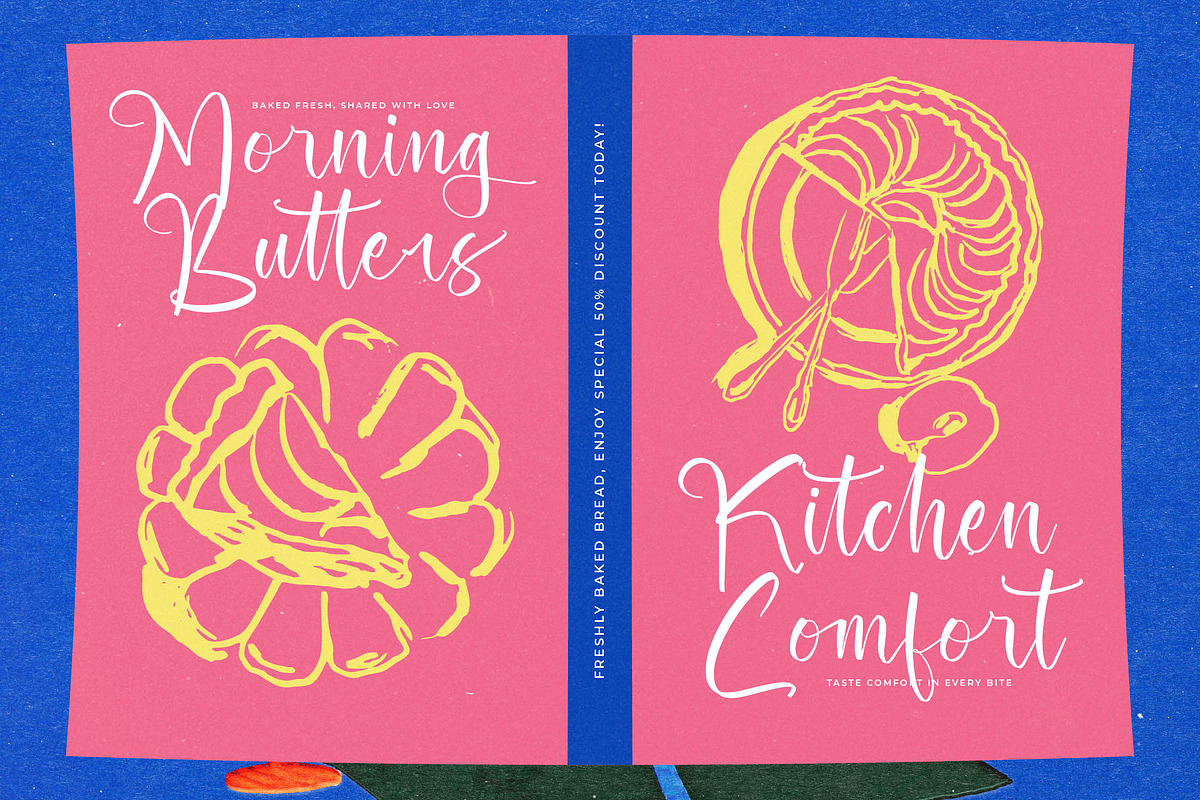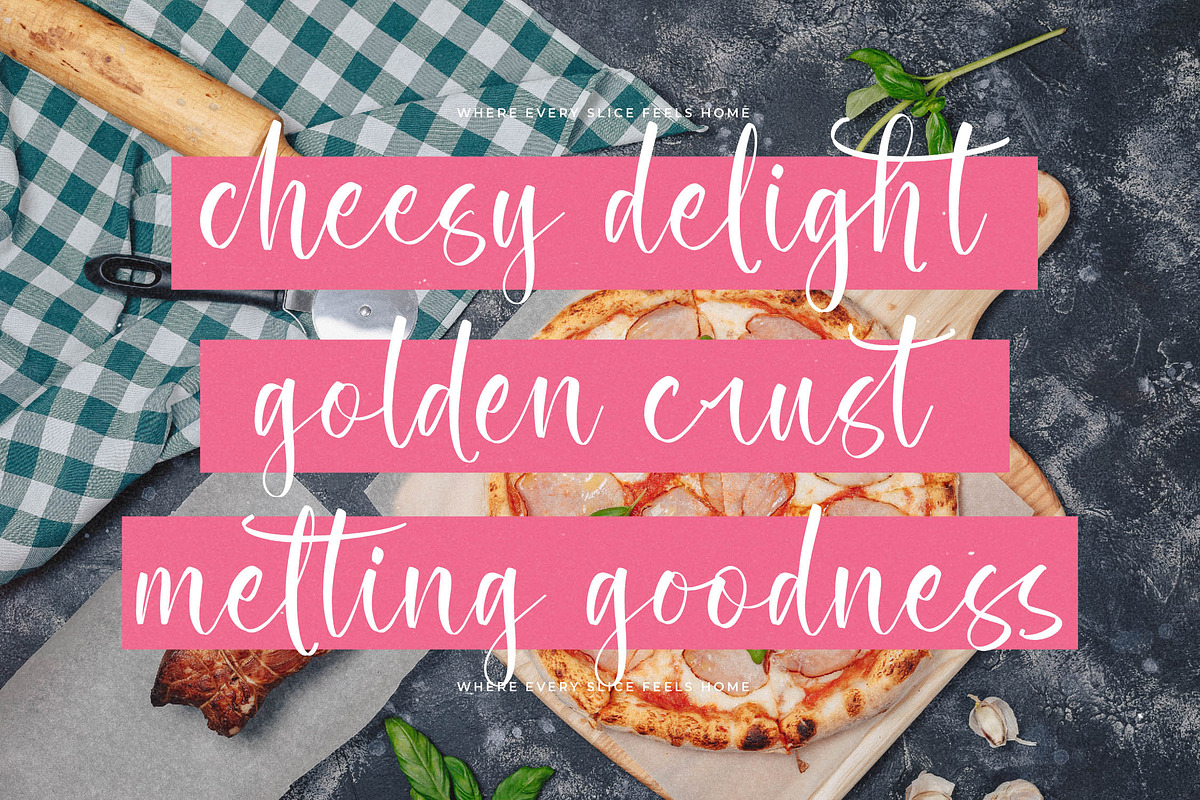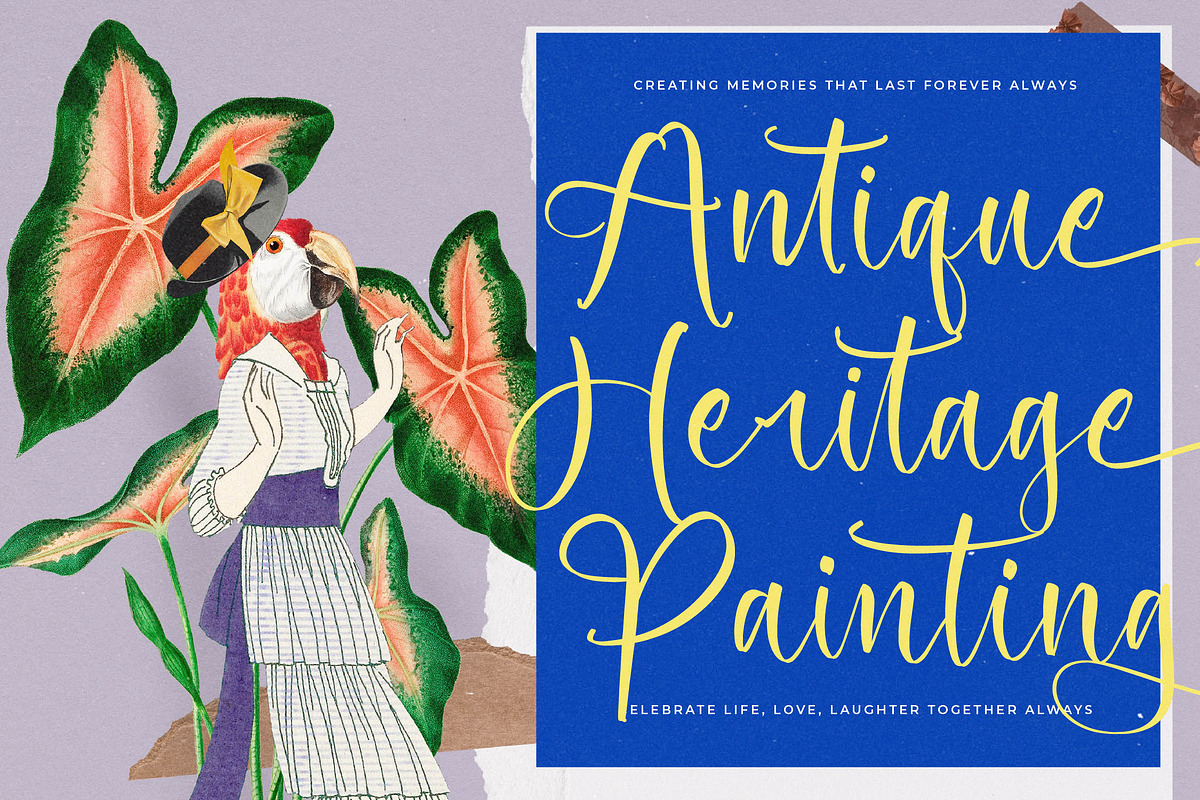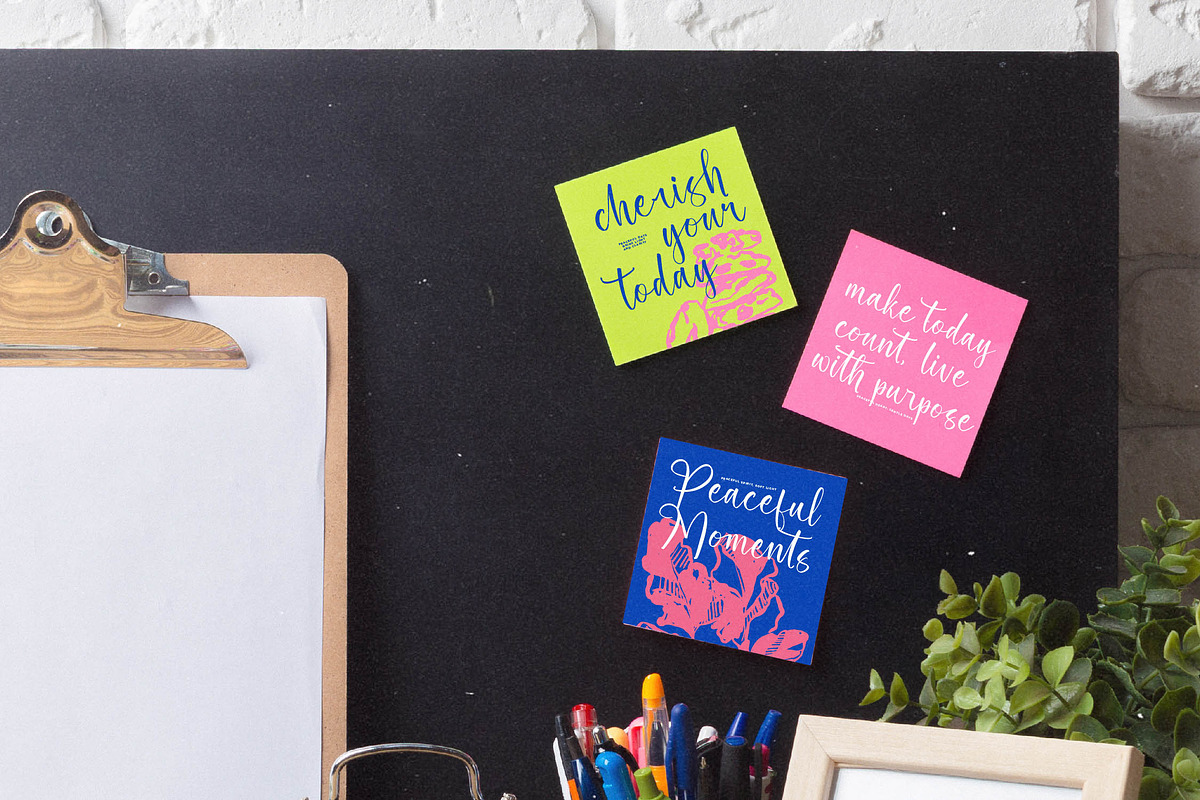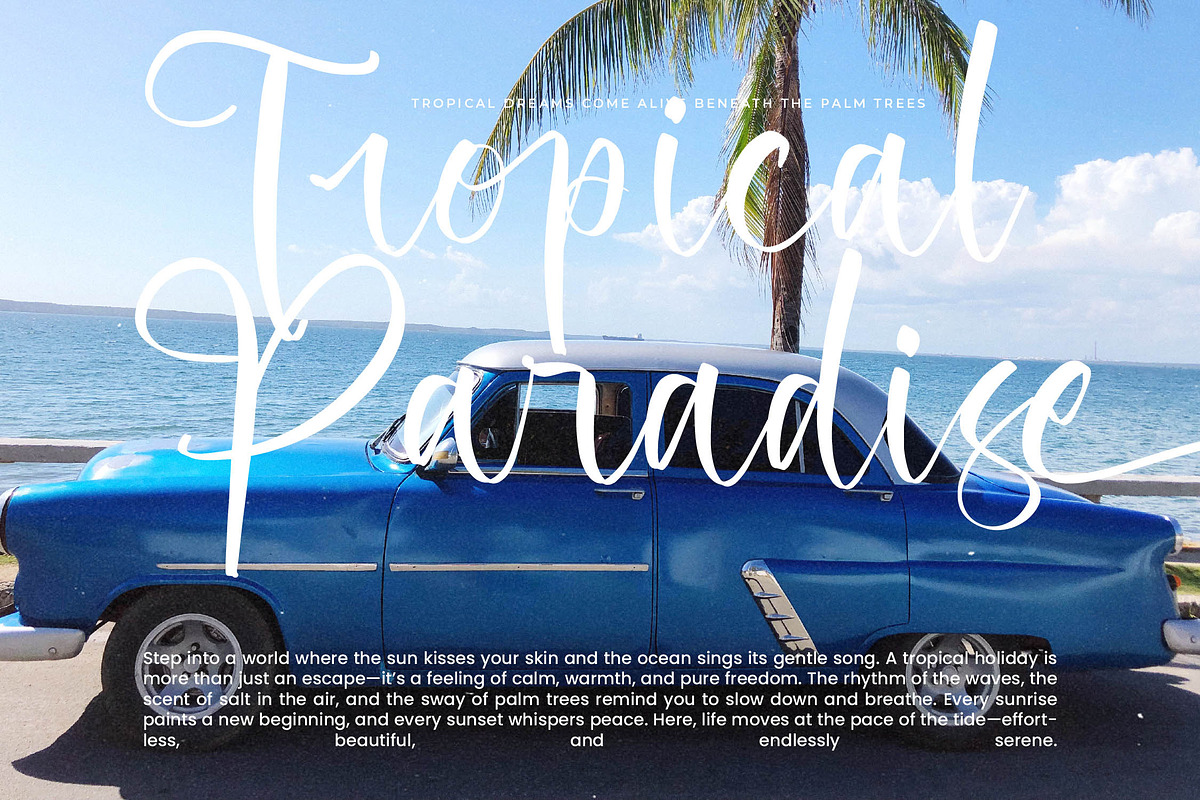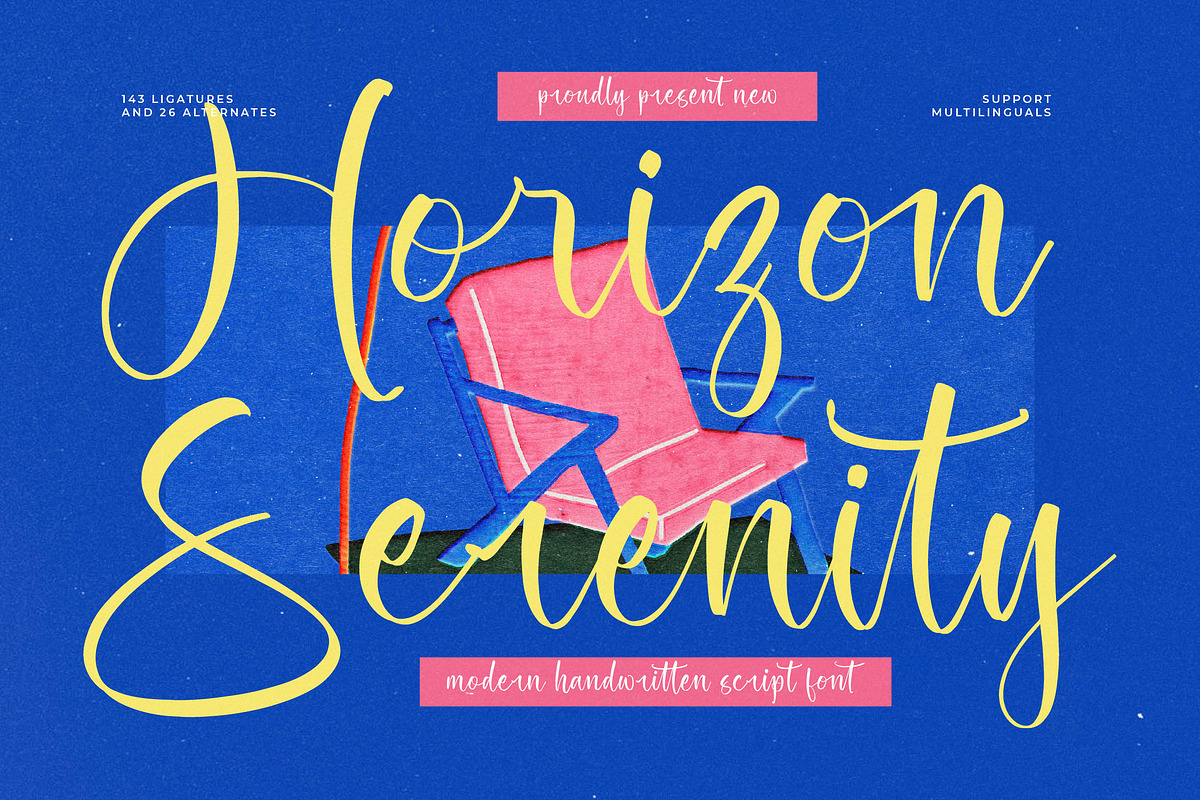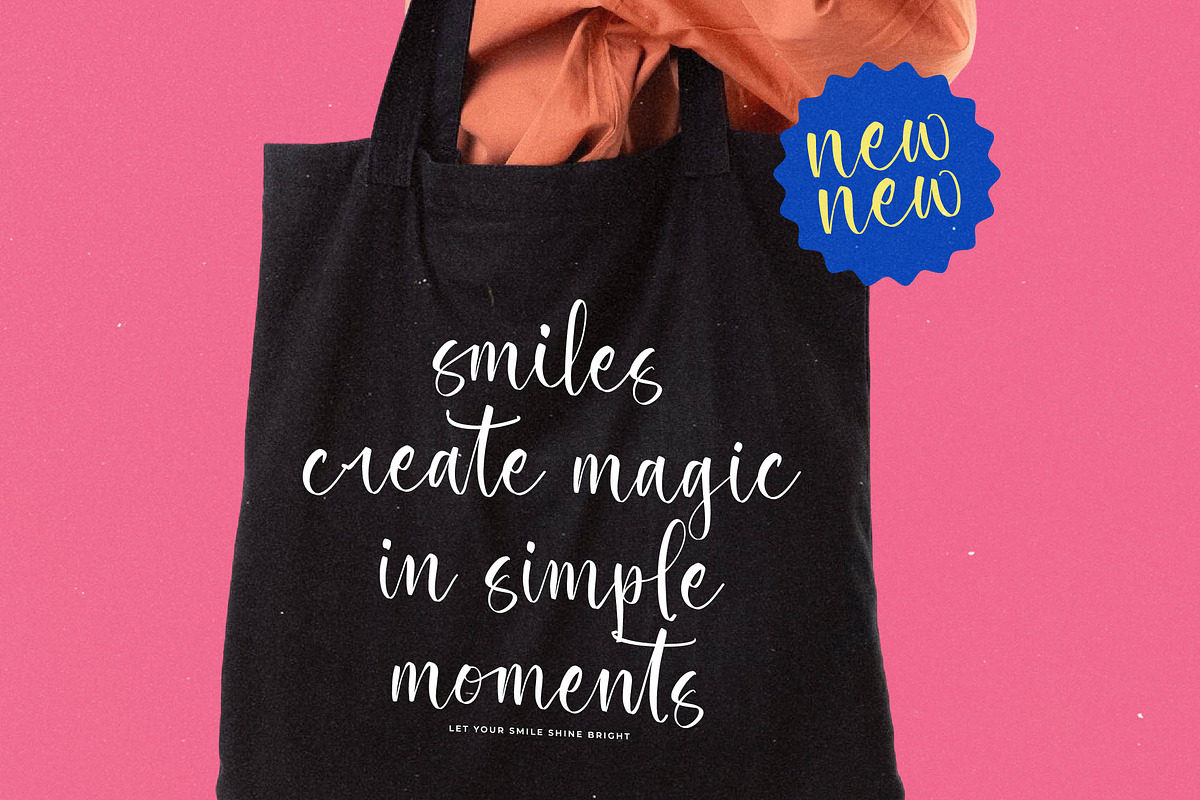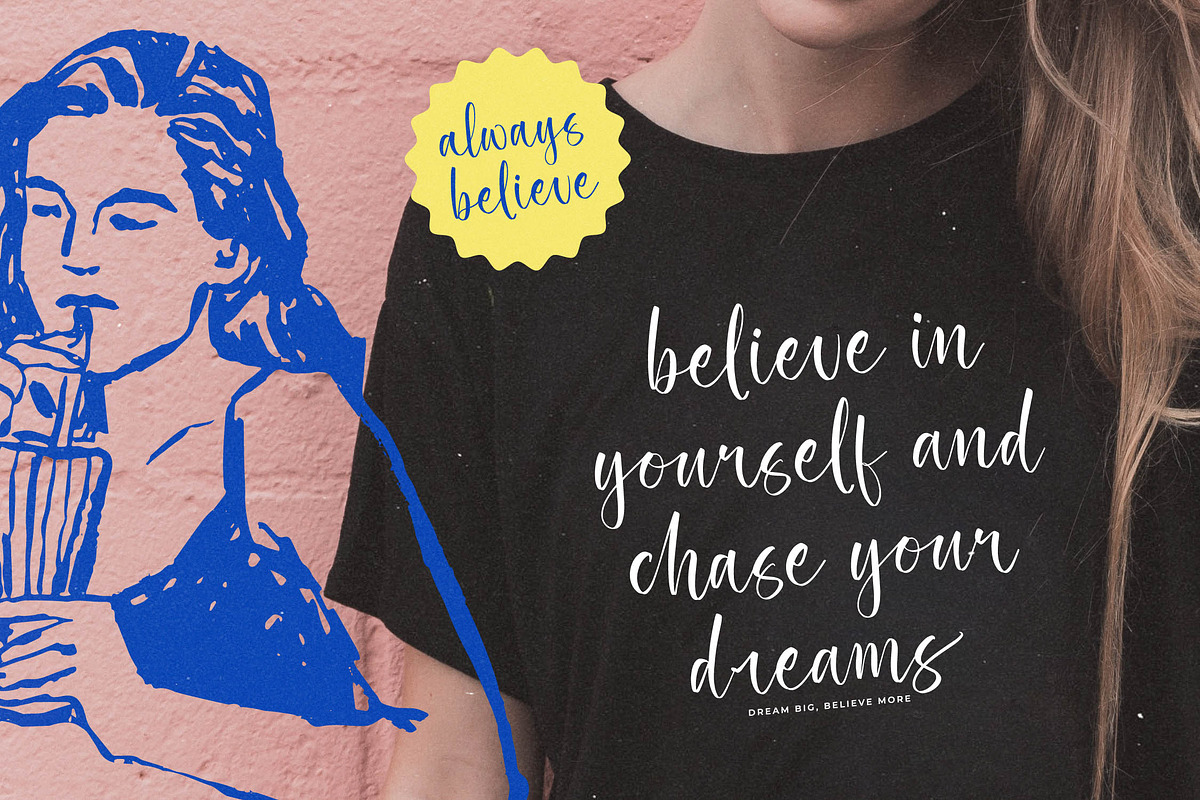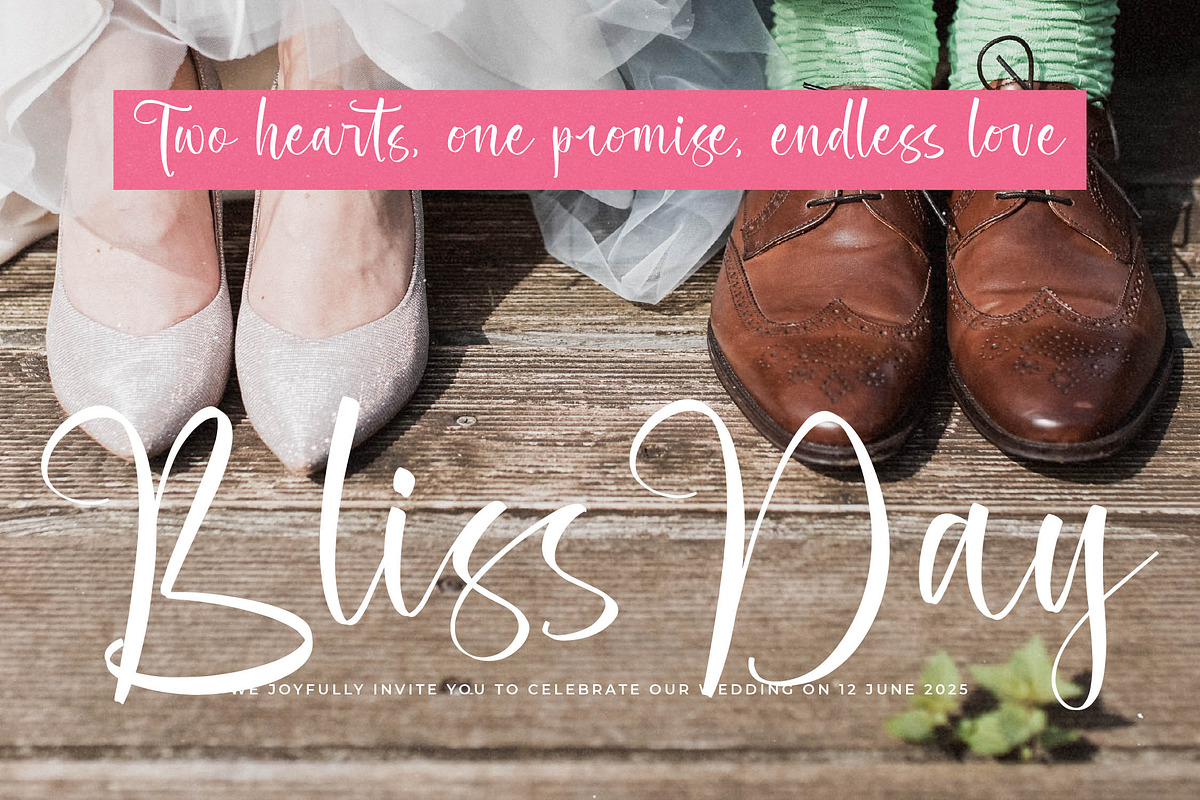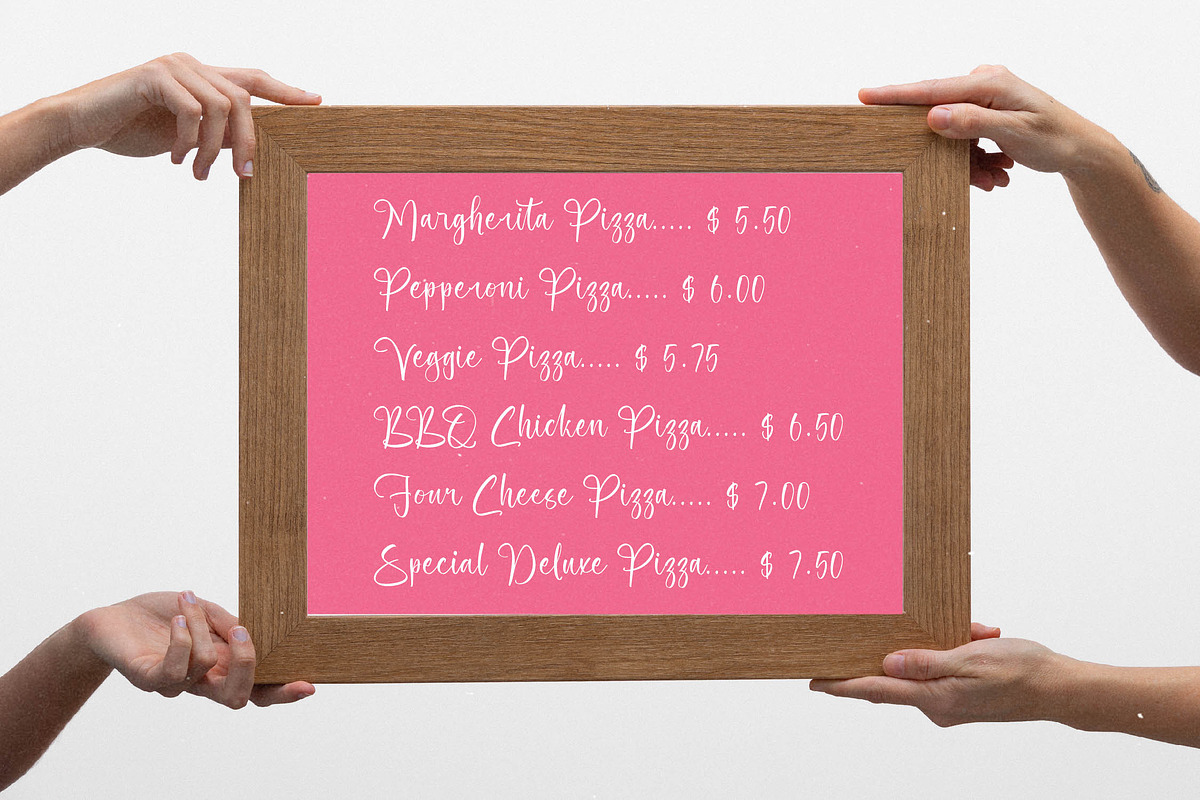
Horizon Serenity Modern Handwritten
Horizon Serenity - Modern Handwritten Script Font ,Horizon Serenity is a modern handwritten script font that captures the beauty of carefree summer days and handwritten warmth. With 143 ligatures and 26 alternates, this typeface flows naturally and gracefully, perfect for invitations, branding, posters, product packaging, and social media graphics. Inspired by casual handwriting and artistic brush strokes, Horizon Serenity brings a balance of elegance and informality to your projects. Whether for lifestyle branding or heartfelt quotes, it adds an authentic human touch that feels fresh, creative, and effortlessly stylish.